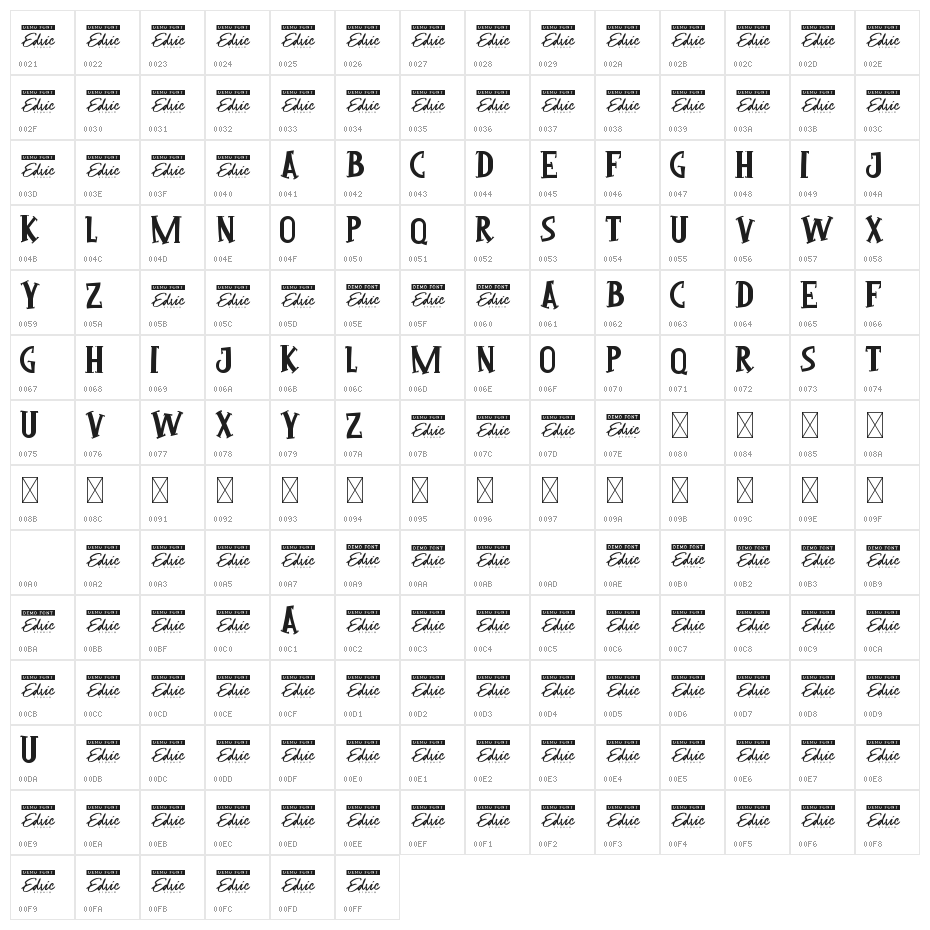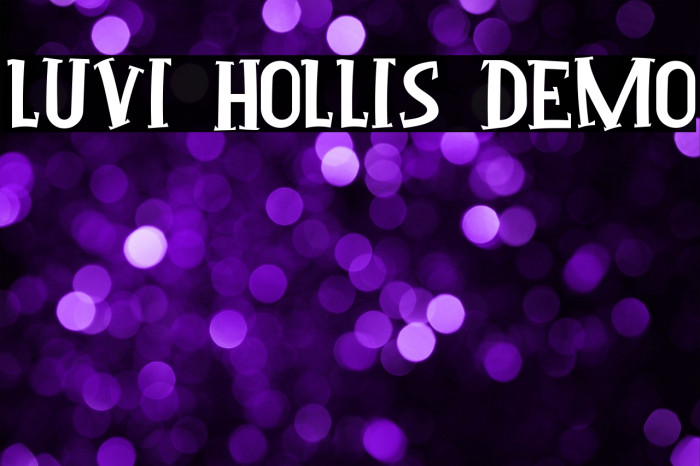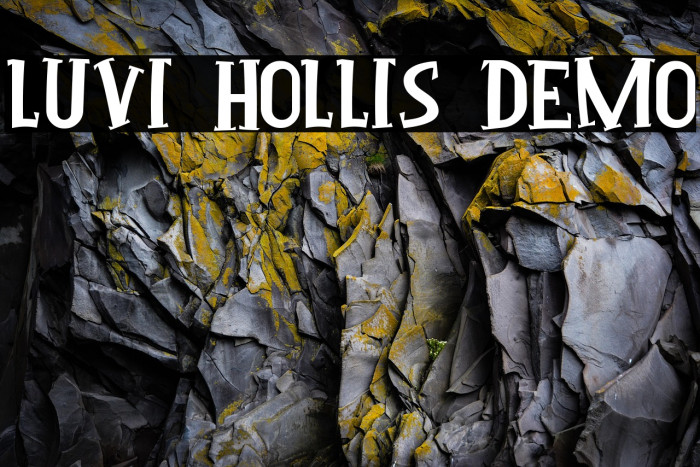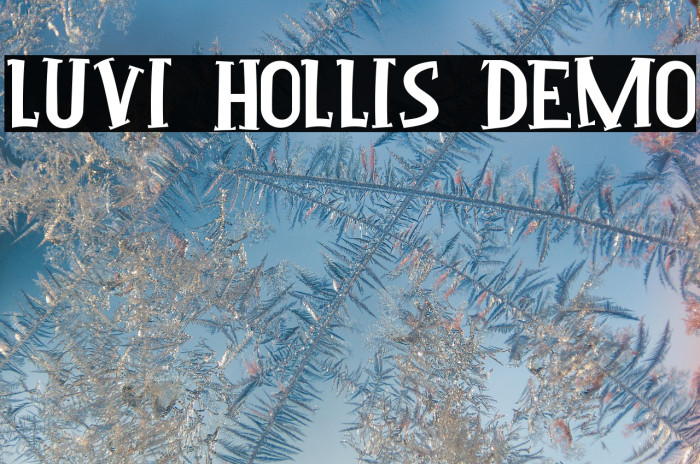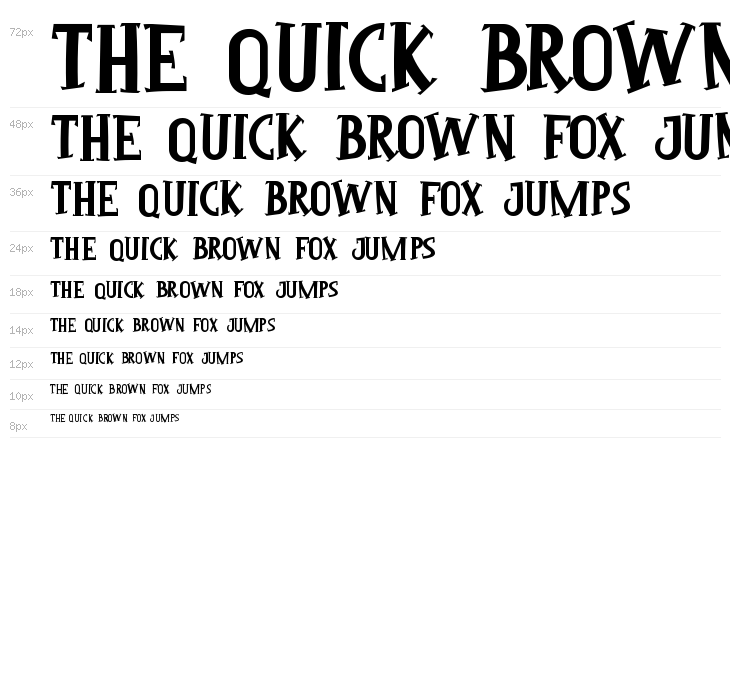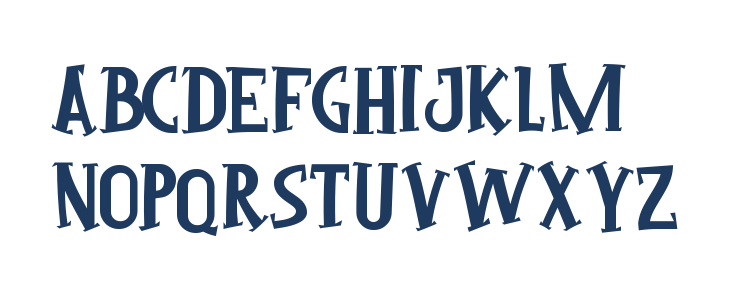
Luvi Hollis Demo Font
This font features a bold and dynamic style with sharp, angular serifs and a slightly condensed form. The uppercase letters exhibit a strong presence with a unique flair, making them stand out. The lowercase letters maintain the same boldness, offering a cohesive look throughout. The script version adds a touch of elegance with its fluid, connected strokes, providing a nice contrast to the bold serif style. This combination of styles makes it versatile for various design needs.
Overall StyleModern, Decorative
Use CaseHeadlines, Logos, Branding
Proposed ProjectsIdeal for branding projects, poster designs, and headlines that require a strong visual impact. The script style can be used for invitations or elegant branding elements.